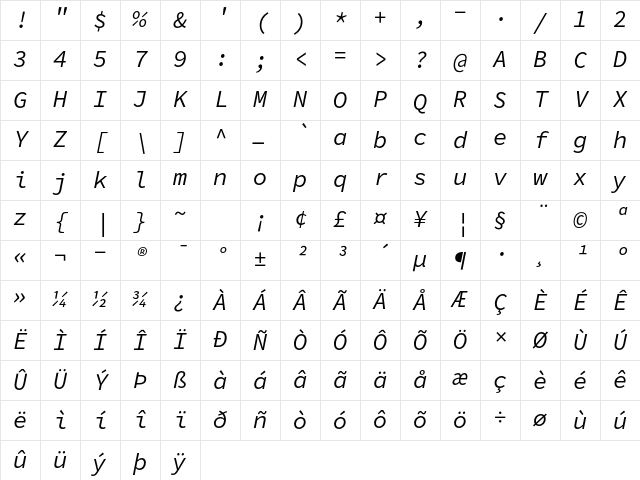
Hasklug NF Italic
Designer: Paul D. Hunt, Teo Tuominen
Design Context for Hasklug NF
Hasklug NF is a composed and adaptable typeface that performs quietly and consistently across a wide range of design contexts. The slanted form adds forward momentum and visual energy.
Pro Tip: Use Hasklug NF for emphasis, pull quotes, and subheadings where its slanted energy can add rhythm to the layout.